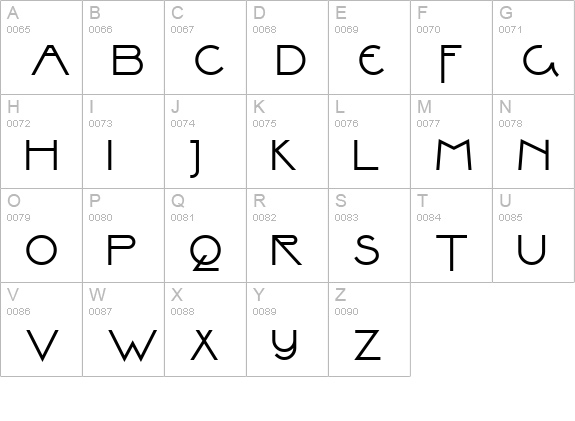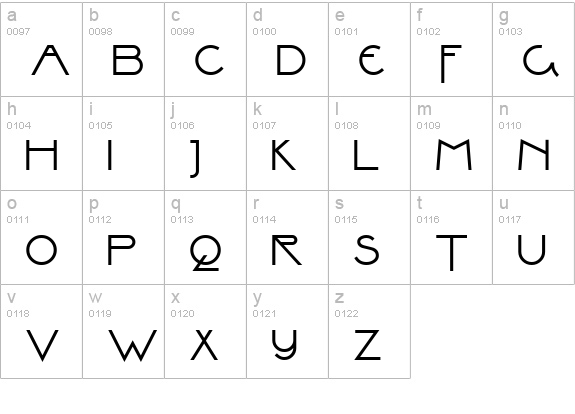
ValleyGrrrlNF font is a stunning display typeface that exudes a bold and rebellious spirit. With its edgy and intricate letterforms, this font is sure to make a statement in any design project. Whether you're creating a rock band poster, a grunge-inspired logo, or a rebellious streetwear brand, ValleyGrrrlNF font is the perfect choice to add a touch of attitude. What sets ValleyGrrrlNF font apart is not just its striking aesthetics, but also its accessibility. It is available for free download at FontsMarket.com, making it easily accessible to designers and creatives worldwide. Whether you're a professional graphic designer or a hobbyist looking to add a unique touch to your personal projects, ValleyGrrrlNF font is freely available to enhance your creative endeavors. This font boasts a wide range of characters and ligatures, allowing you to experiment and create custom typography that truly stands out. The letters are beautifully crafted with a mix of sharp angles and rounded edges, giving ValleyGrrrlNF font a distinctive and captivating appearance. With ValleyGrrrlNF font, your designs will capture attention and evoke a sense of rebellion and individuality. Its versatility allows it to be used in a variety of design contexts, from album covers to merchandise, posters to websites, and everything in between. Whether you're going for a vintage-inspired look or a contemporary edge, ValleyGrrrlNF font will effortlessly elevate your designs. So, if you're looking for a font that combines boldness, rebelliousness, and accessibility, look no further than ValleyGrrrlNF font. Download it for free at FontsMarket.com and unleash your creativity with this captivating typeface.